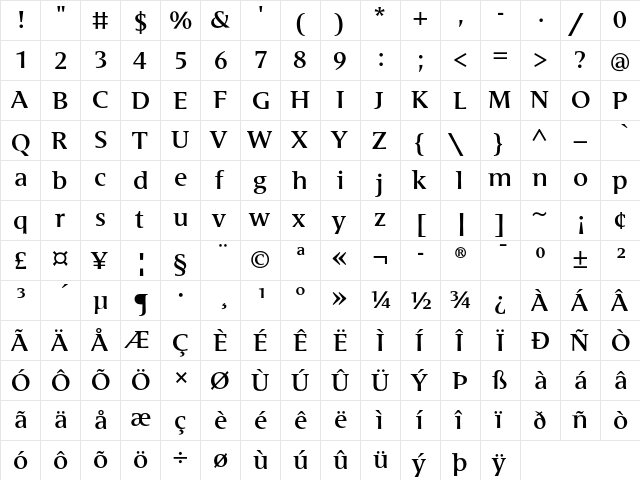
Areplos Text Pro Regular
| Foundry | Jan Solpera |
| Designer | Jan Solpera |
Design Context for Areplos Text Pro Typeface
Areplos Text Pro offers clean, dependable letterforms without strong stylistic allegiance, making it a practical choice for designers who need flexibility.